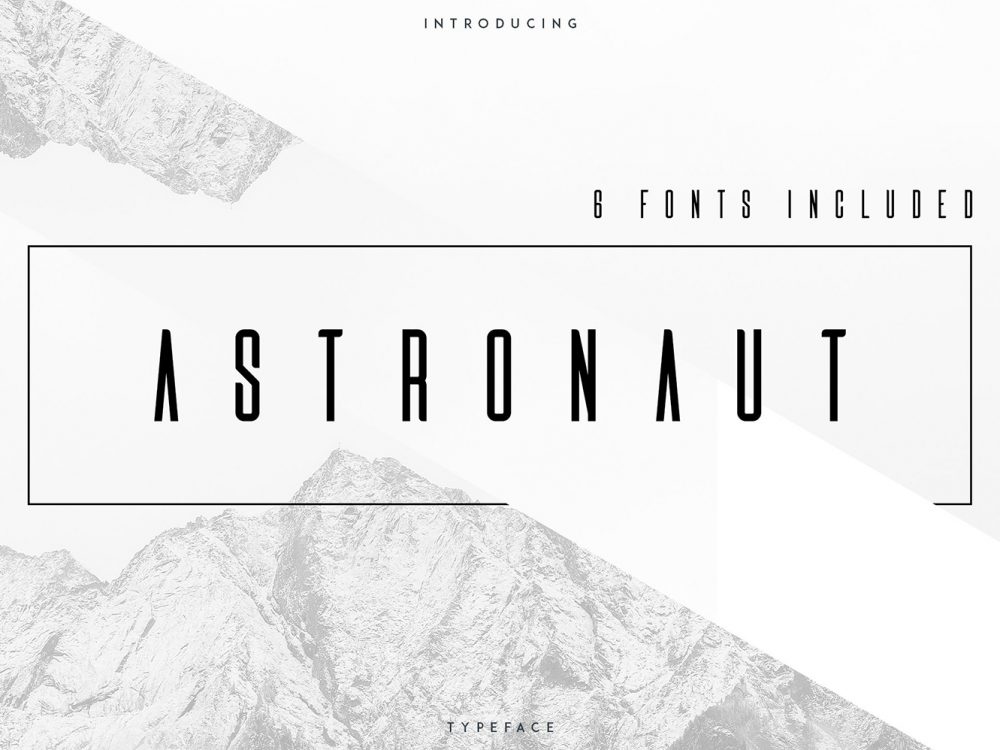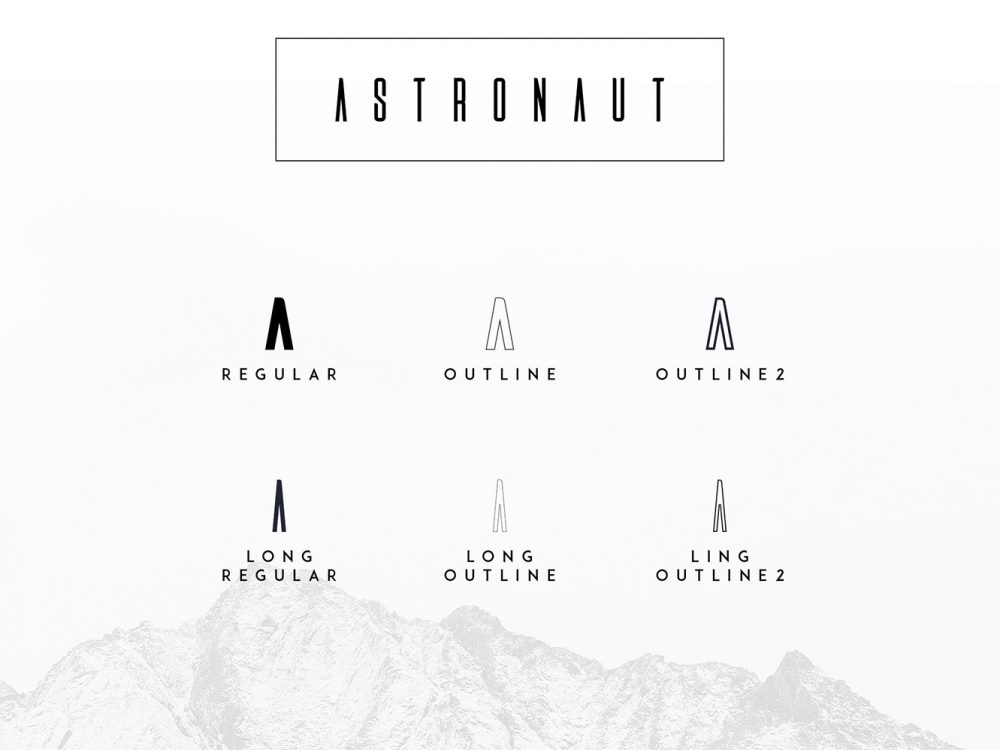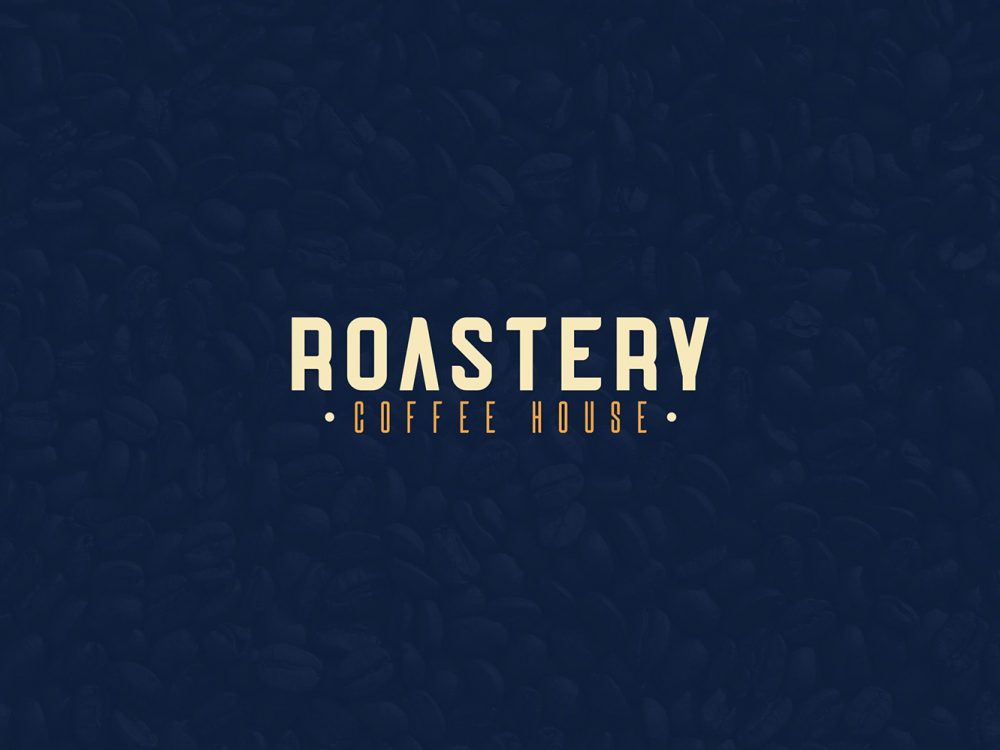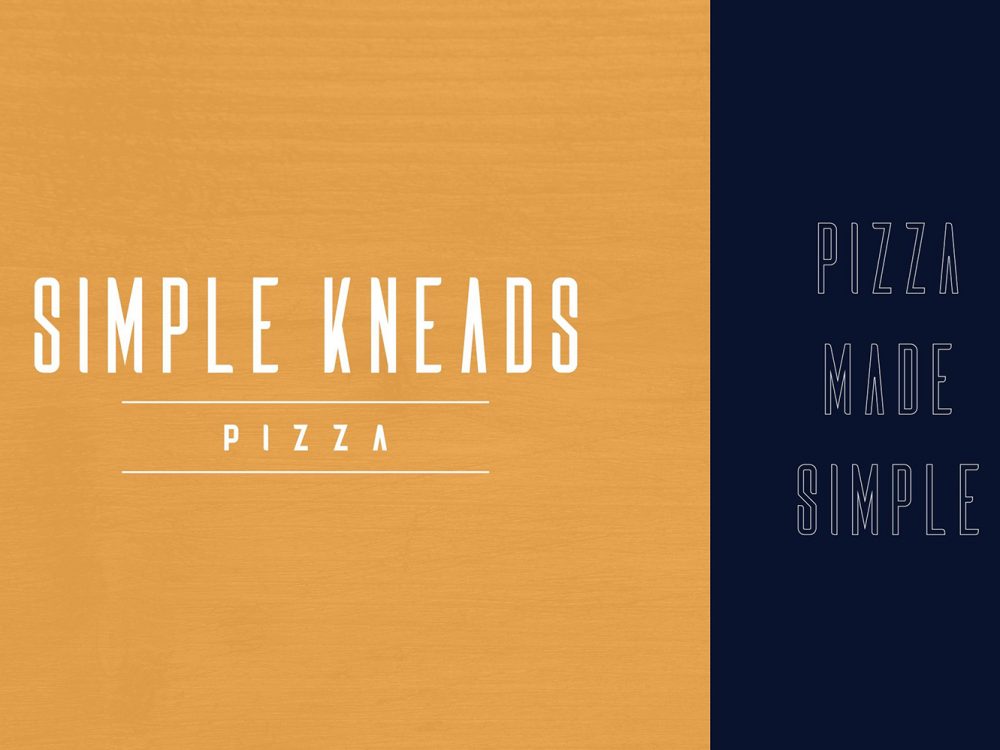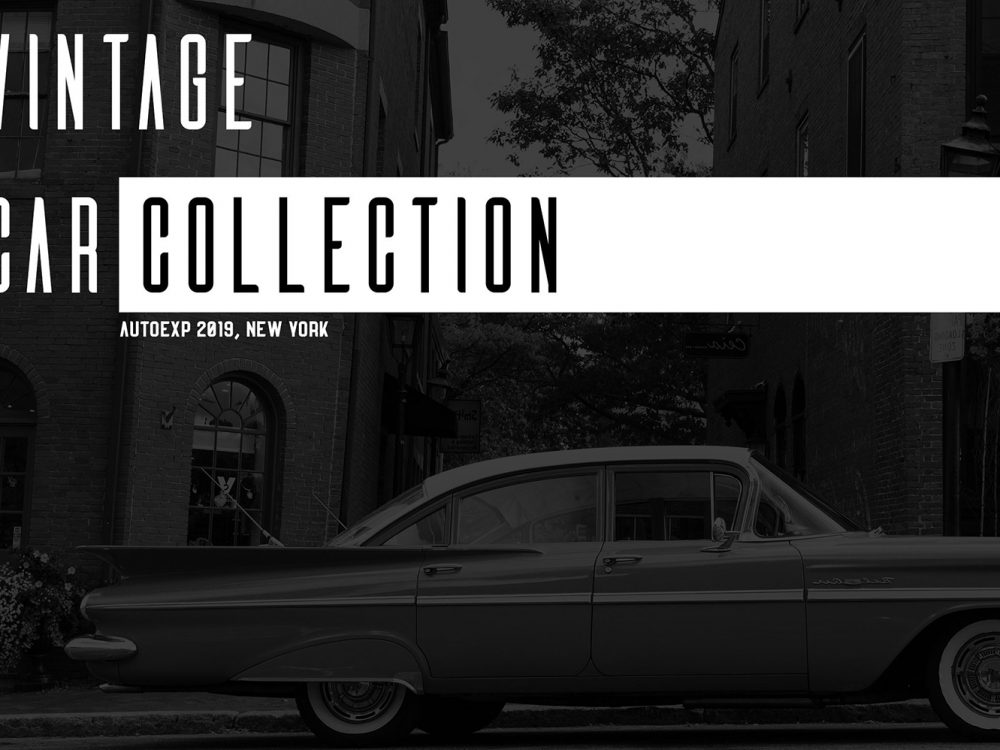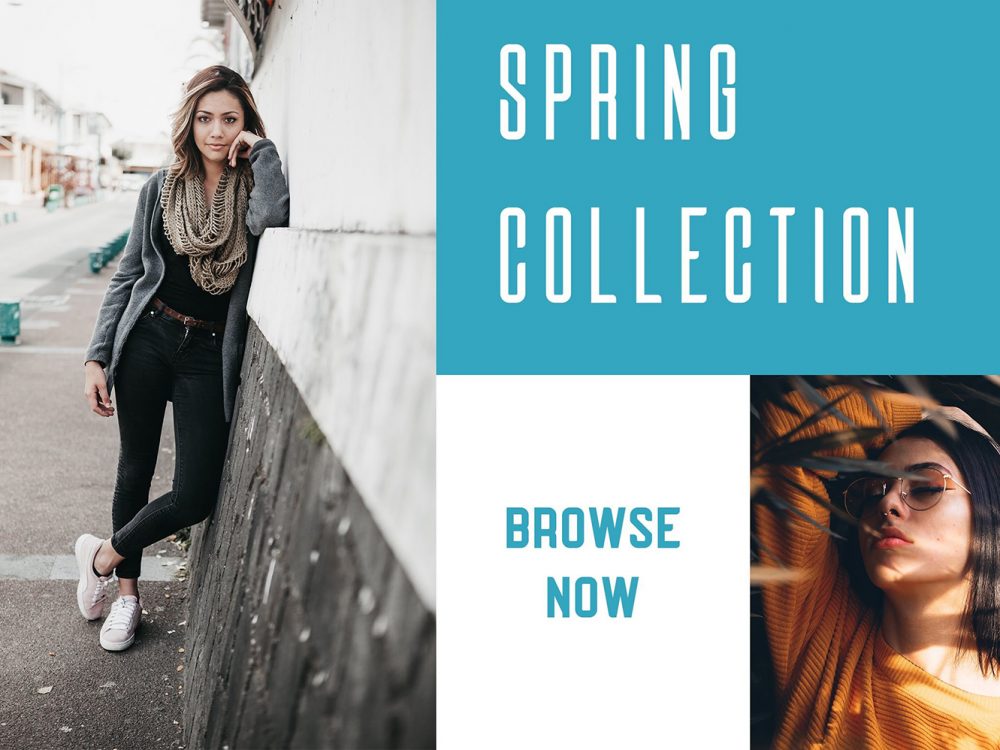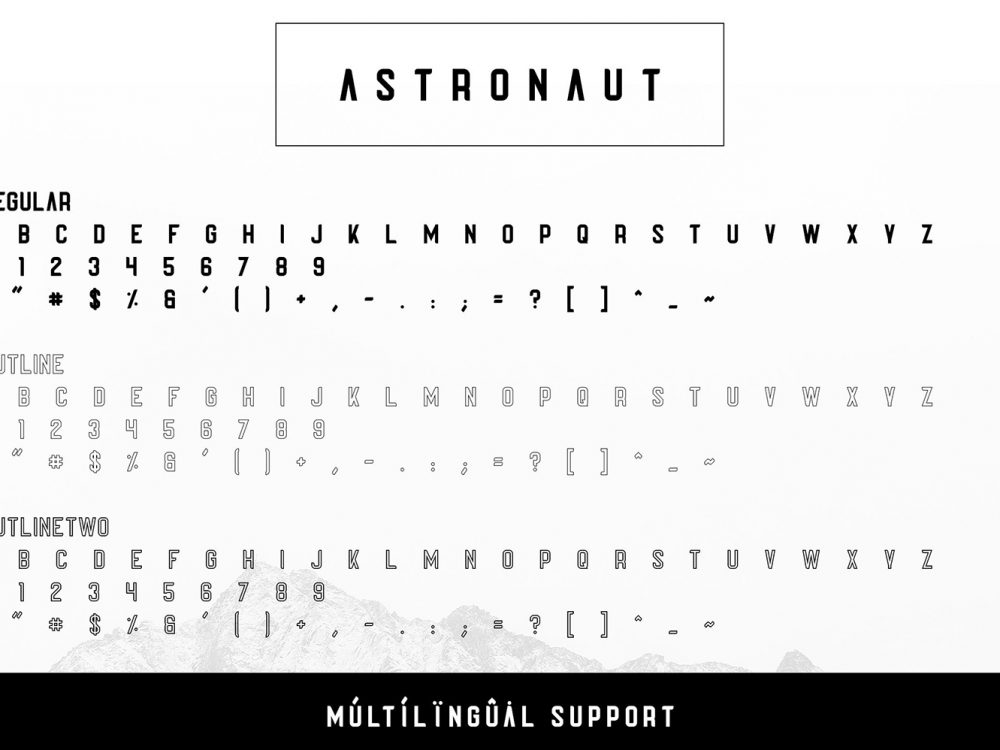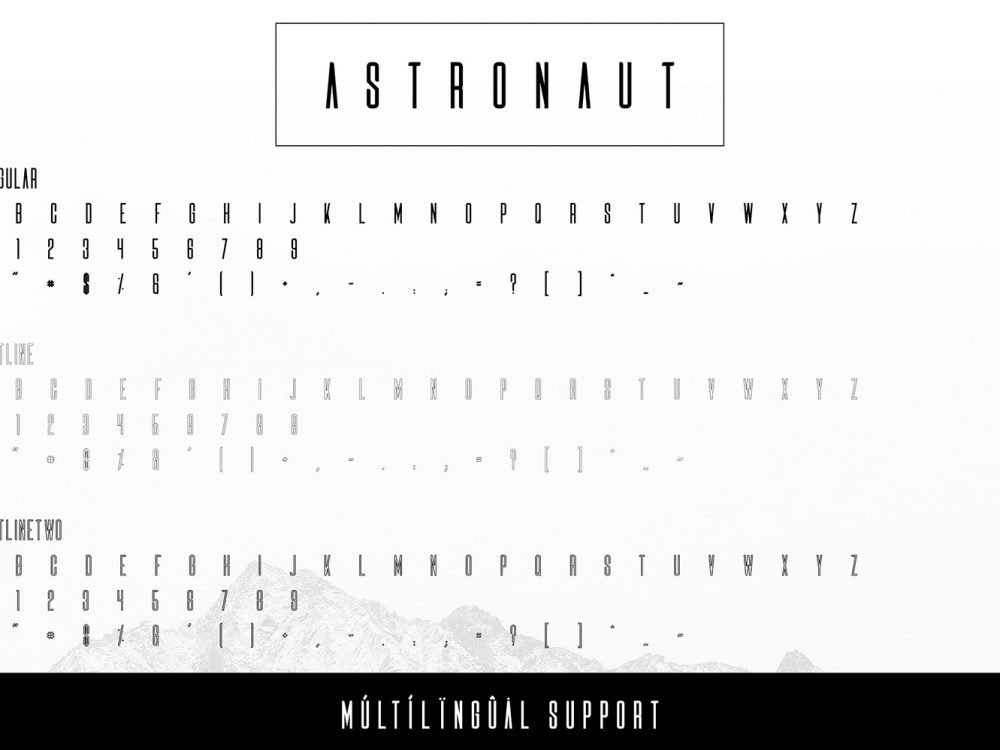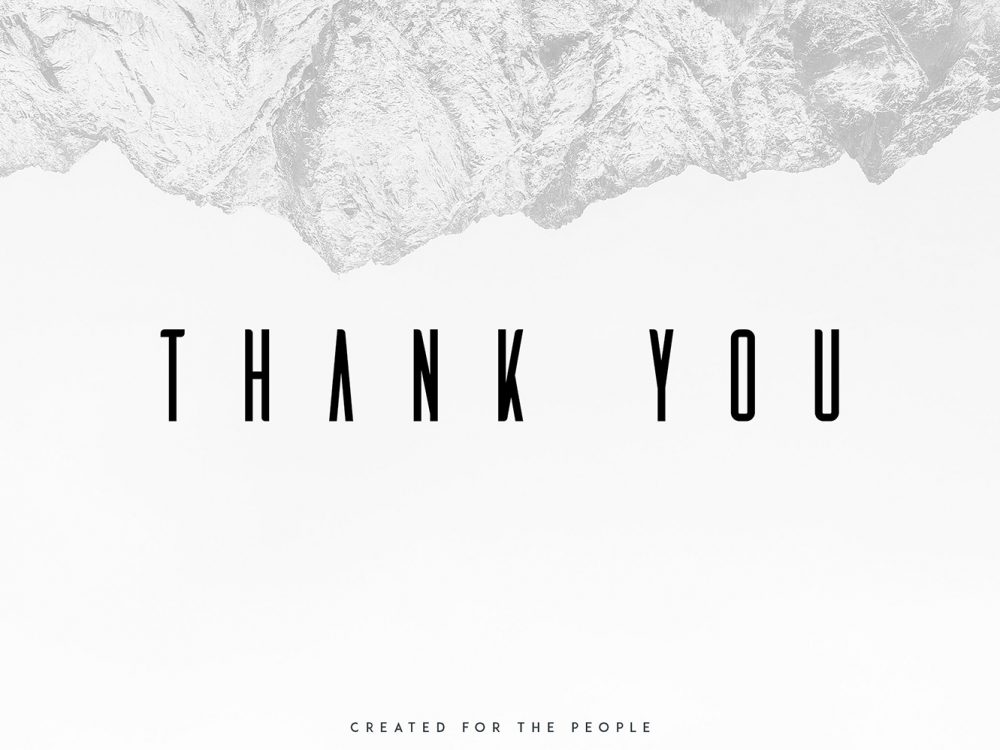
Astronaut Free Font
Astronaut Free Font is a beautiful, elegant font that stands out for its versatility and is very suitable for creating various design projects. Use this font to create posters, cards, invitations, flyers, prints, and more. Please purchase the full version for commercial use.
Author: VPcreativeshop